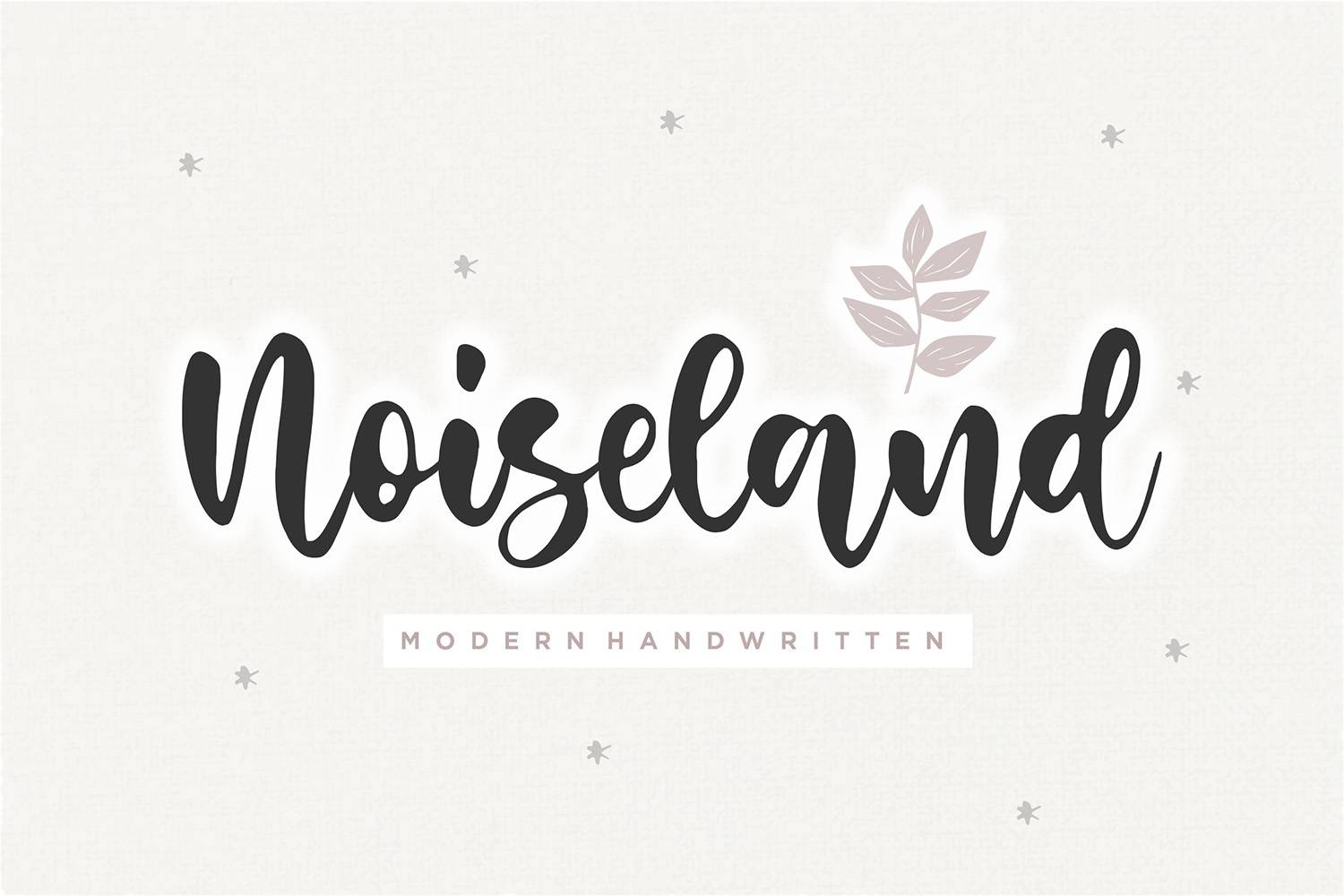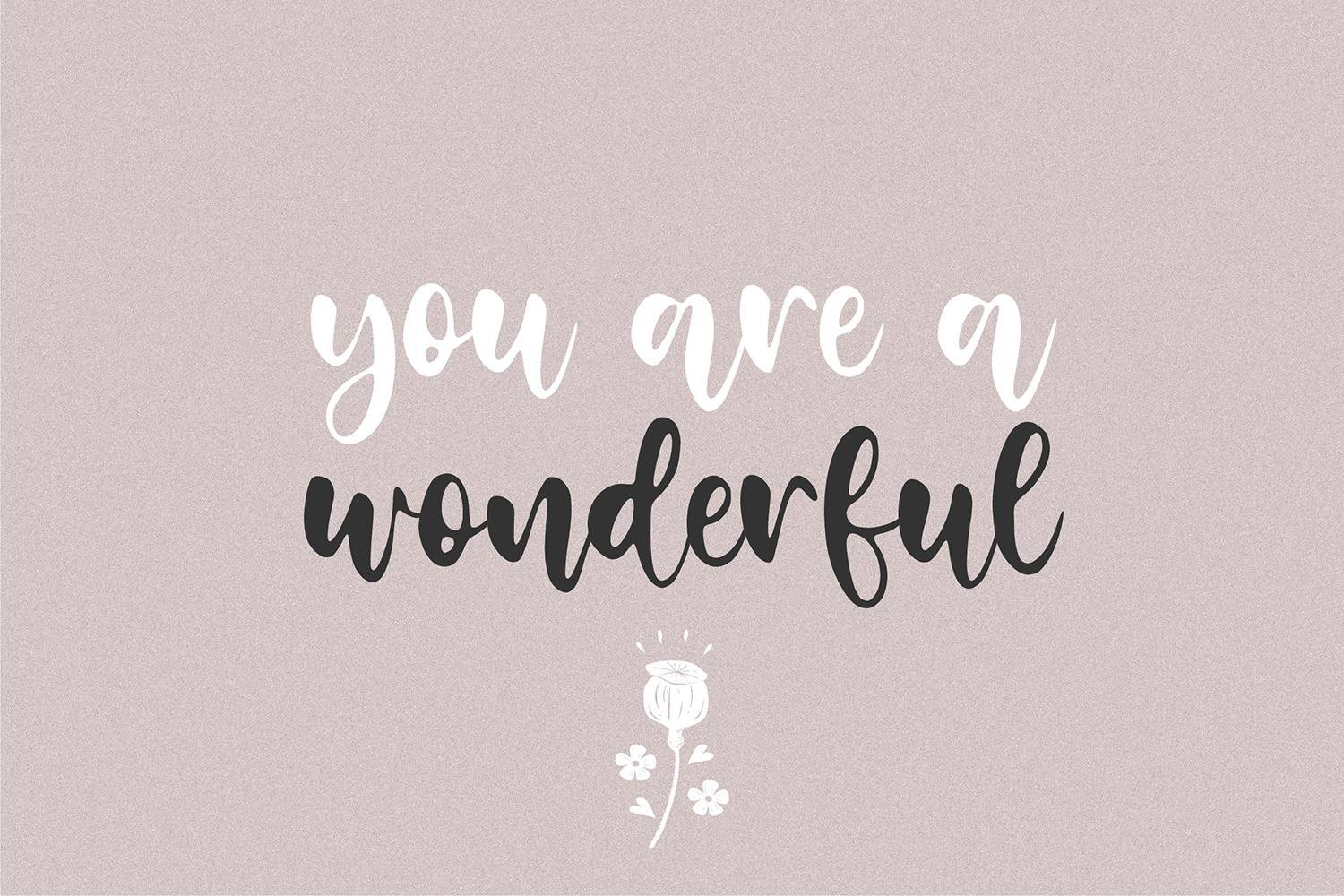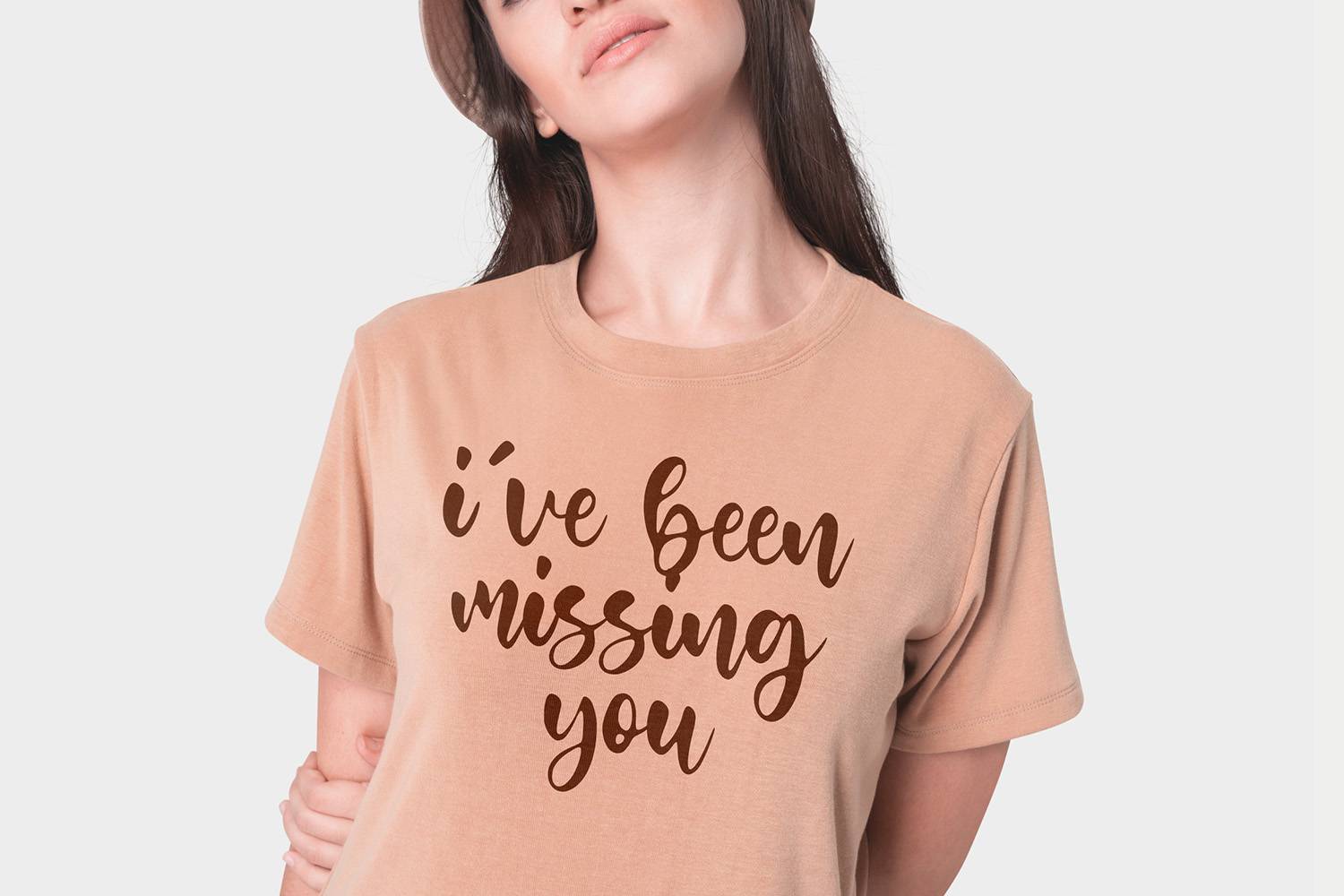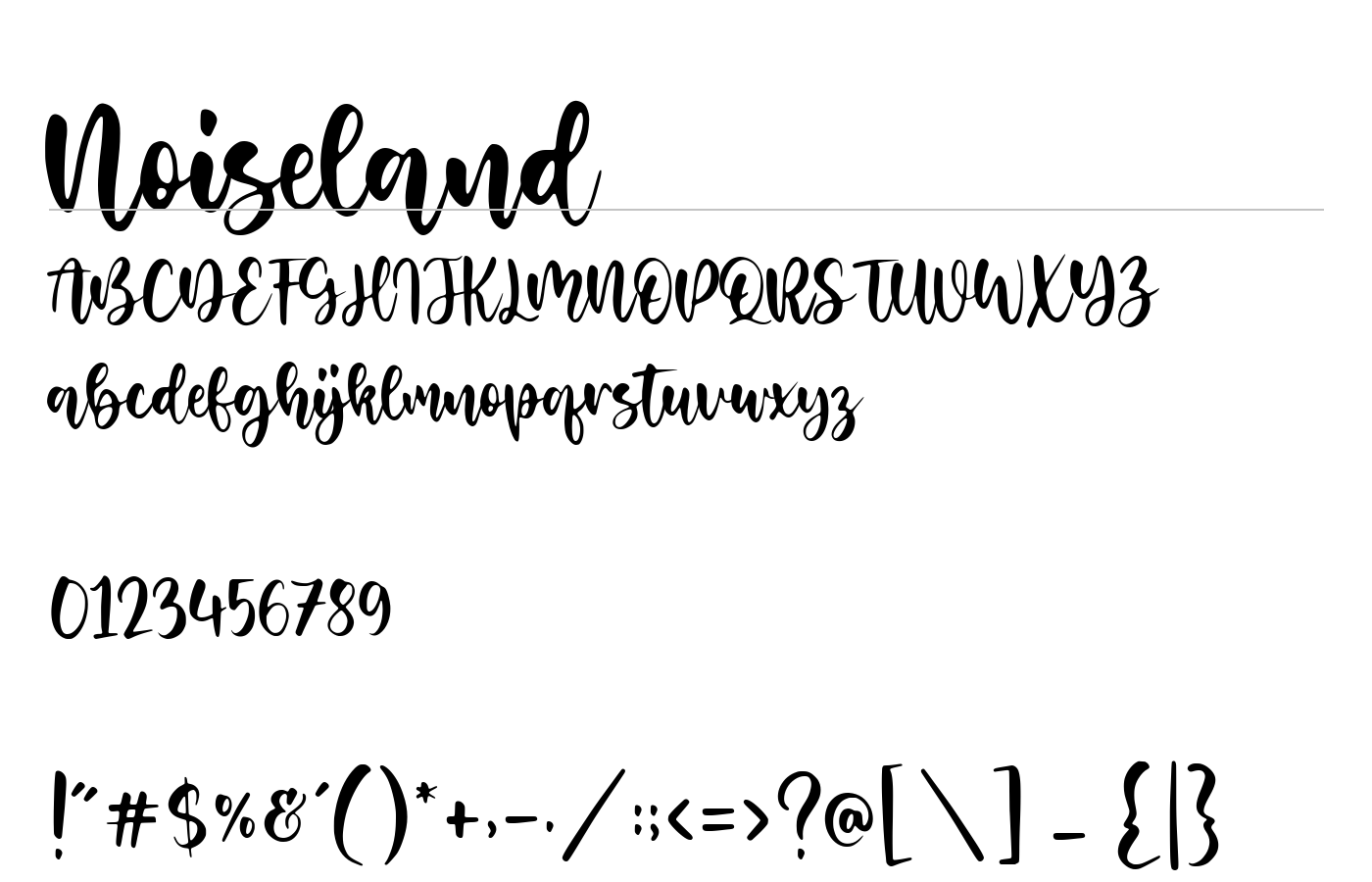
Noiseland is a lively and modern script font with a casual, handwritten feel, featuring smooth, connected strokes and a playful rhythm. Its medium weight and slightly condensed forms make it great for adding a personal and friendly touch to creative designs, fashion branding, or invitations. This font works best in headlines and logos where a warm, approachable style is desired.
Noiseland Font
About Noiseland Font